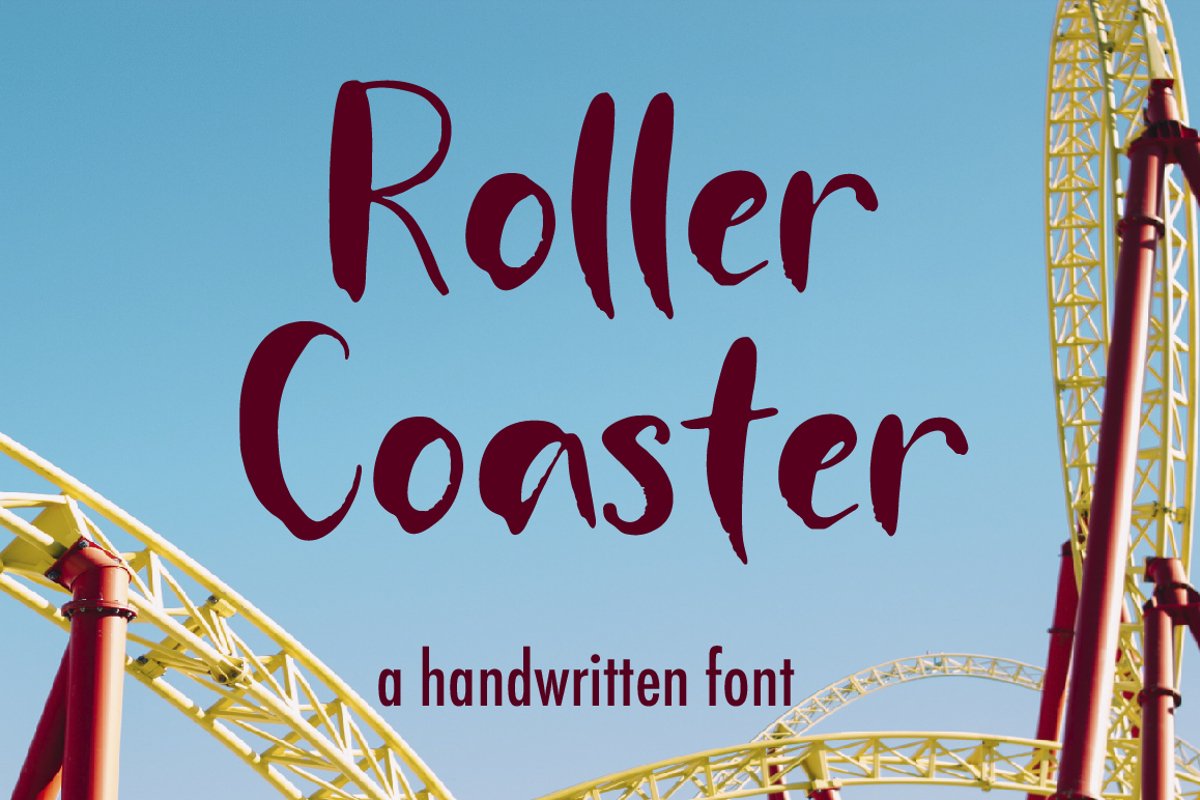
Roller Coaster A Handwritten Font
Introducing the handwritten font Roller Coaster with beautiful texture. This font will look great for logotype, quotes, greeting cards, social media overlays, website, fashion and branding design and any more.
Hand-drawn script font Roller Coaster contains a full set of uppercase and lowercase letters and one alternate set of lowercase letters plus 4 ligatures - which can be used to create a handwritten look. Multilingual support is included.
• Alternate set of lowercase